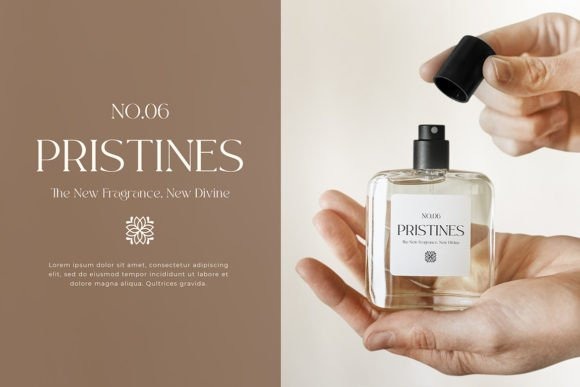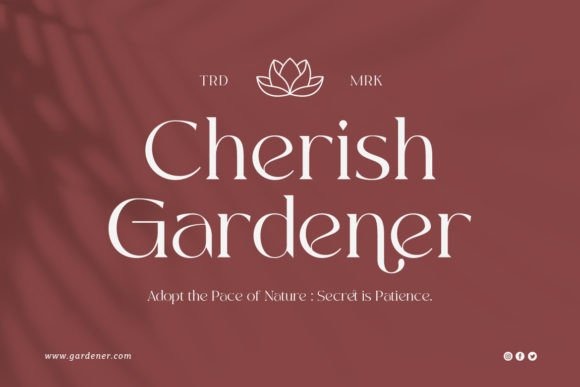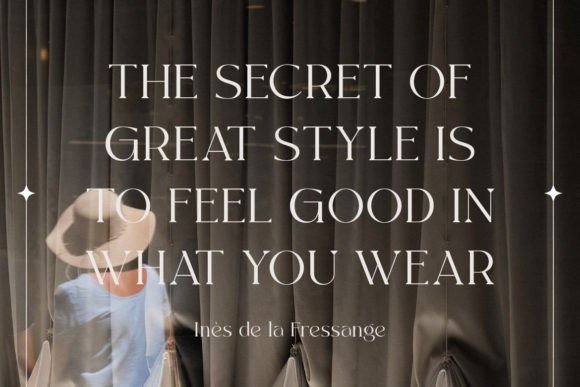
Kayonest Serif Font is a very elegant serif font featuring clean lines, and sharp edges with oval combinations, very pretty but still has strong straight lines. Elegantly crafted and easily matched to an incredibly large set of projects. Use this font to achieve an exquisite, yet subtle look and maximum versatility.